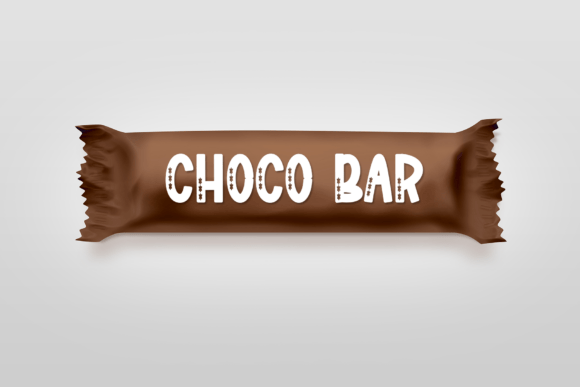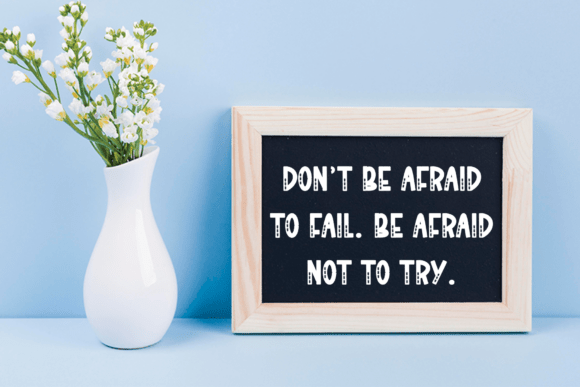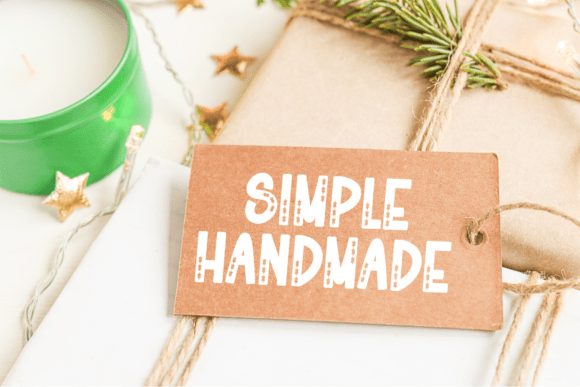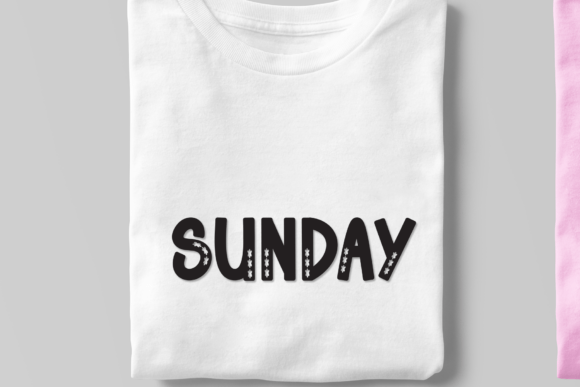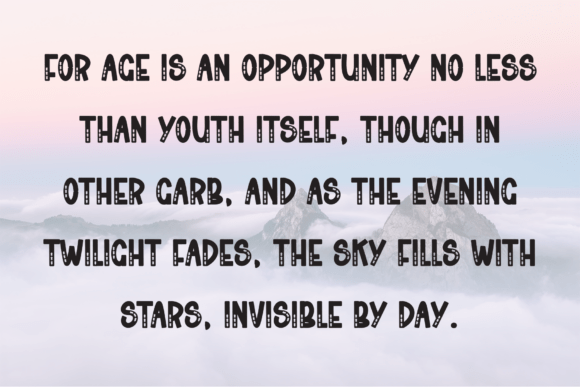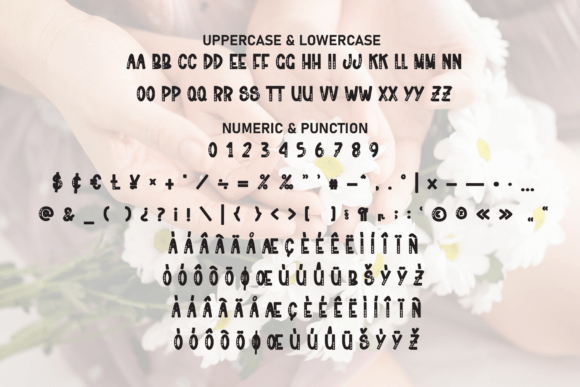
Introduction to Flower Sister Font Font
Fonts play a crucial role in design, and the Flower Sister Font font is a typeface that brings both character and versatility to any project. Whether you’re working on a branding project, a website, or a print design, the Flower Sister Font font offers a unique style that can elevate your work.
Flower Sister is a massive and high-impact display font designed for immediate visual depth.
This creative style font features heavy character proportions characterized by thick silhouettes and a stable vertical axis The design is defined by the integration of stylized floral motifs into the vertical strokes of each letter, creating a sense of customized, artisanal craftsmanship.
Key Features of Flower Sister Font Font
Why Choose Flower Sister Font Font?
The Flower Sister Font font is more than just a typeface – it’s a design tool that helps you communicate your message with style and clarity. Its unique character set and versatile design make it suitable for a wide range of applications, from elegant invitations to bold headlines.
With its carefully crafted letterforms and balanced proportions, the Flower Sister Font font ensures readability and visual appeal across all mediums.
What makes Flower Sister Font font special?
The Flower Sister Font font stands out with its unique design, exceptional readability, and versatility across various design applications.